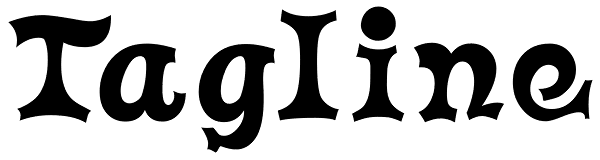
Tagline
"Tagline" is a Fun, Bold casual font that was born from the New York graffiti style. Good for all your entertainment projects. Though "Tagline" is radical in style it's still very readable and calls attention to your message.